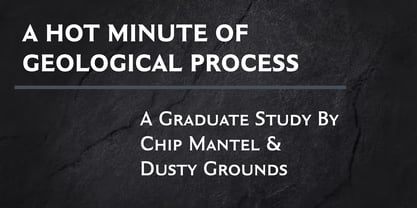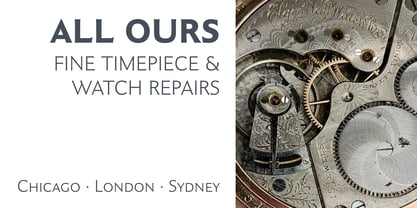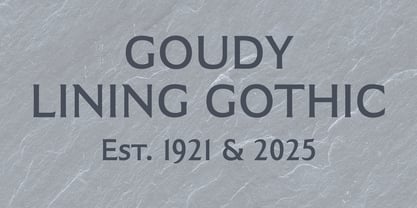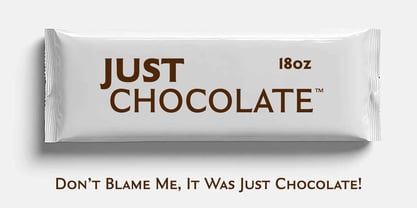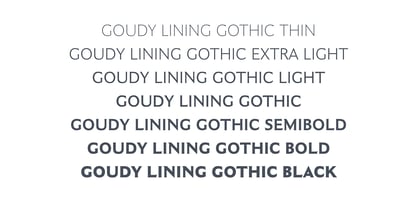
Goudy Lining Gothic
by Matteson Typographics
The Goudy Lining Gothic Font Family was designed by Steve Matteson and published by Matteson Typographics. Goudy Lining Gothic contains 7 styles and family package options. More about this family
Frederic Goudy designed his Lining Gothic in 1921 with an aim to add more interest to the sans serif letterforms available at the time. Steve Matteson re-imagined the single weight of capitals as a full family of light to black weights. Steve accurately drew the slight swell at the end of Goudy’s letters which hints at the beginning of a serif stroke. Lining Gothic was never released commercially but is now preserved for use in packaging, branding, signage and headlines.